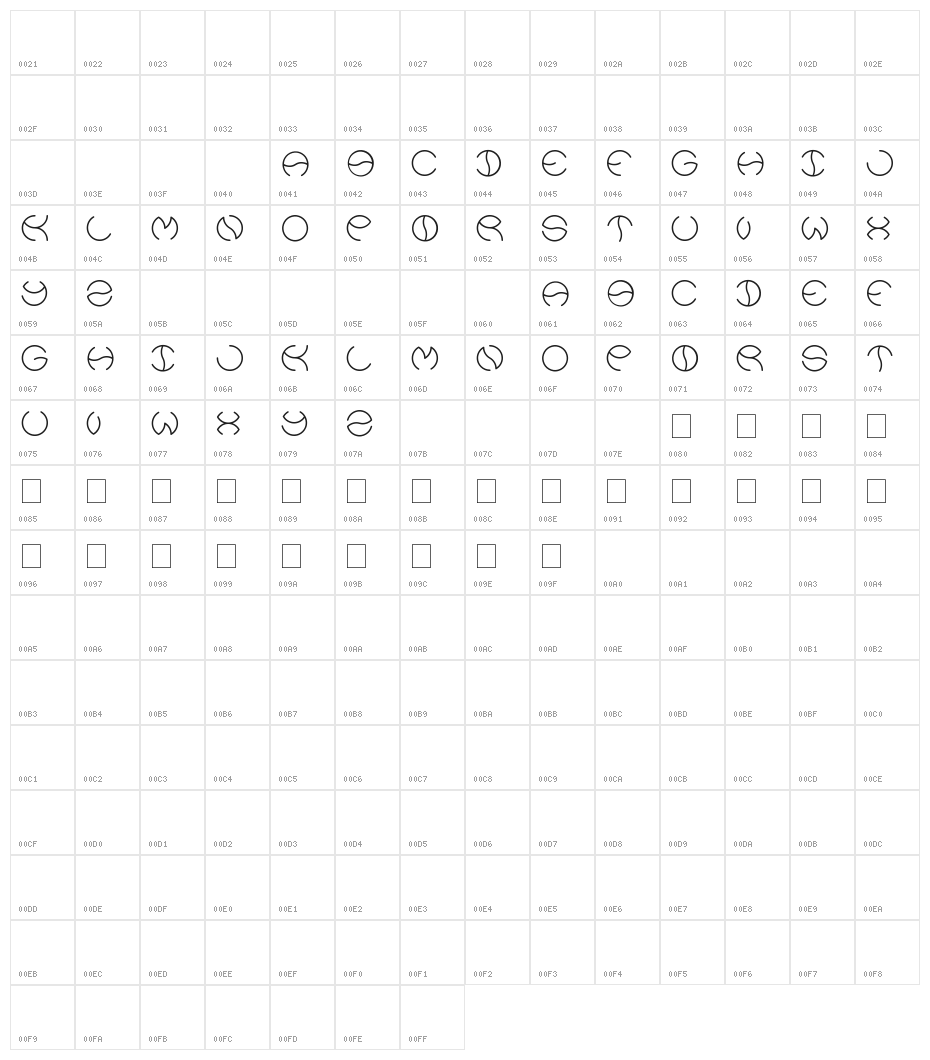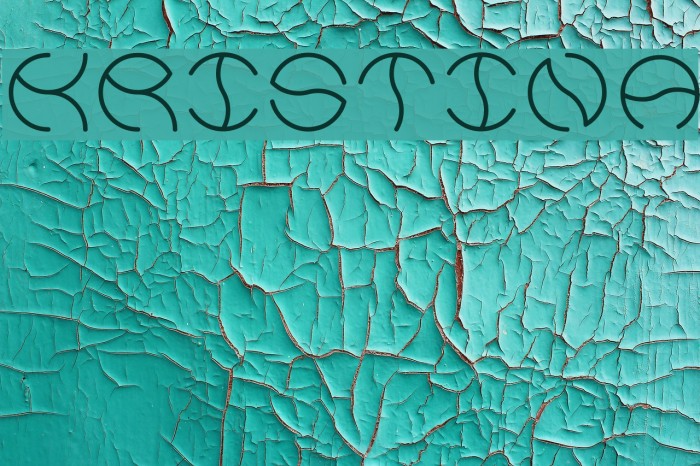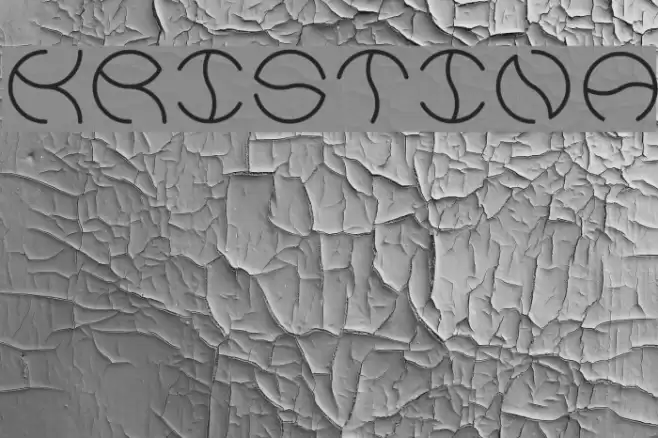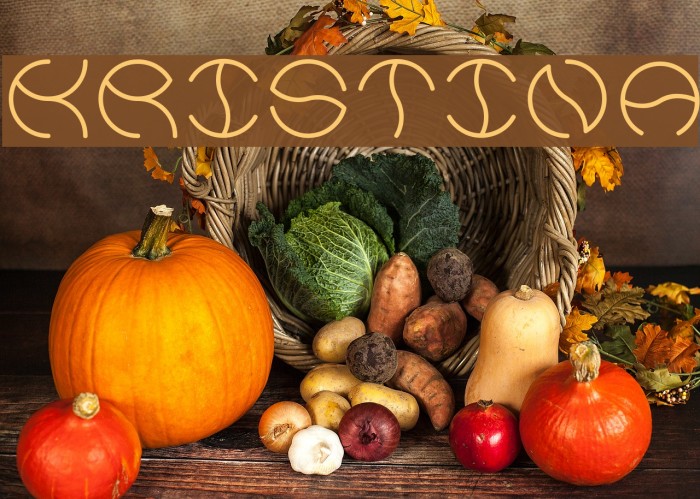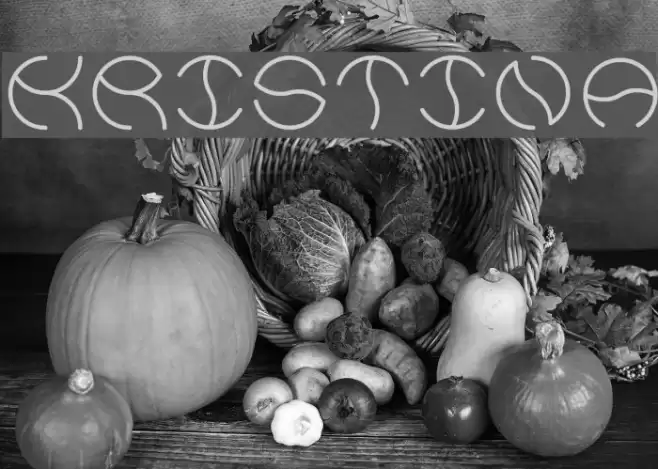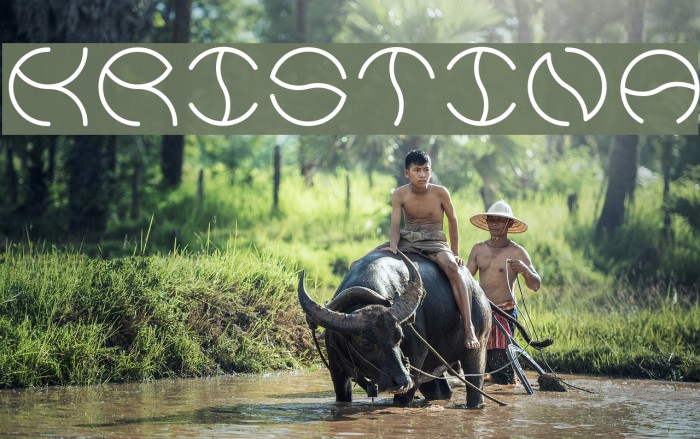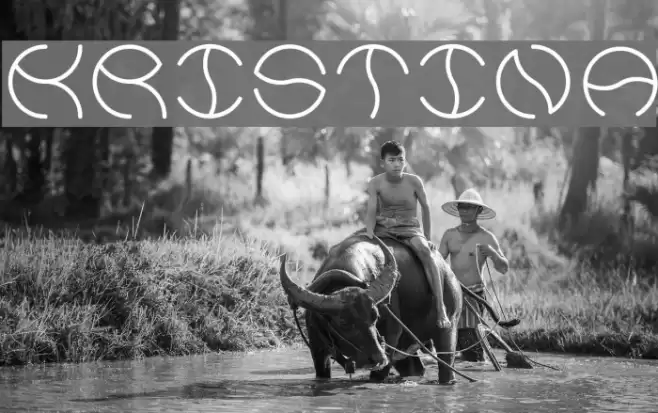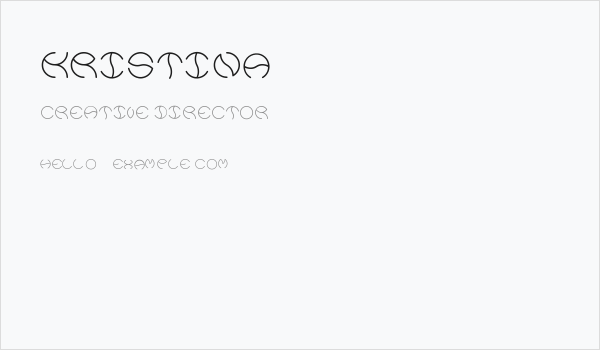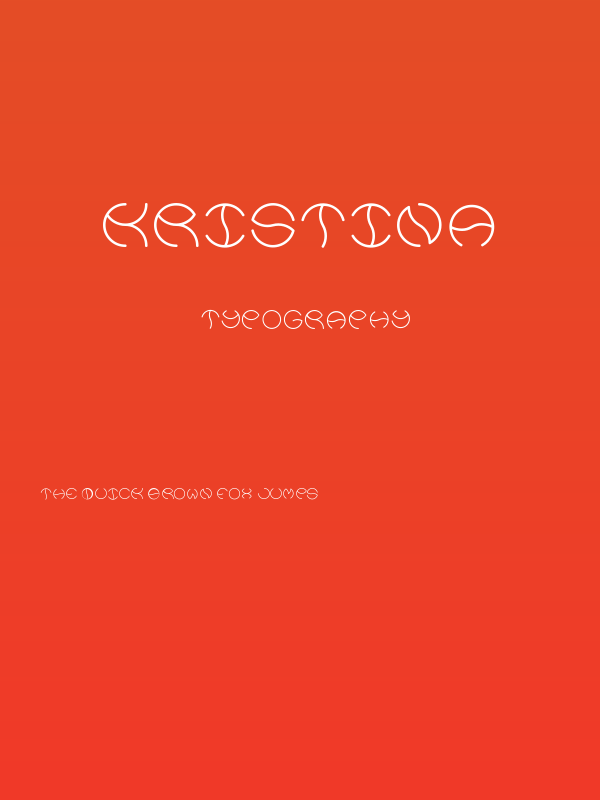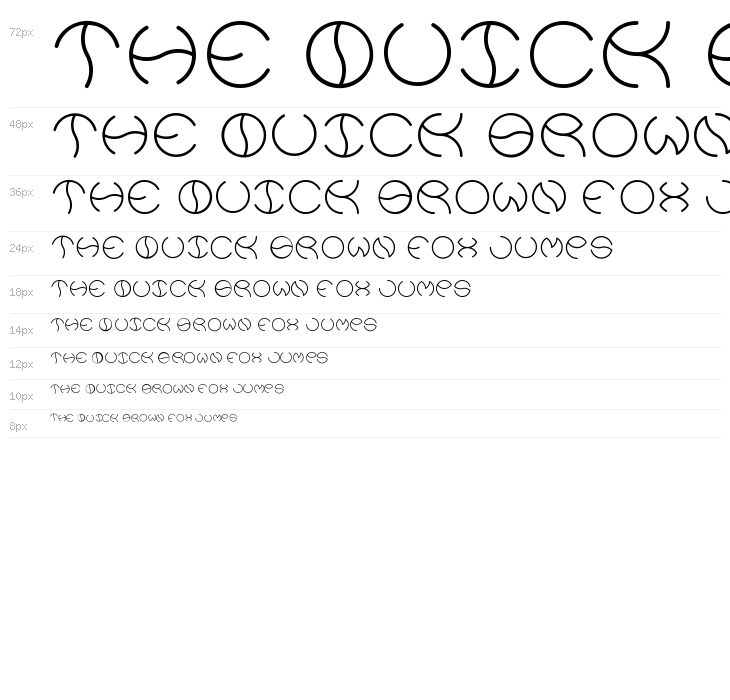
kristina Font
kristina Description
This font features a unique and modern design with a circular, geometric style. Each character is crafted with a consistent thickness, creating a harmonious and balanced appearance. The letters are formed with curves and lines that intersect, giving a futuristic and artistic feel. The uppercase letters are particularly striking, with a symmetrical and bold look that stands out. The font maintains a clean and minimalistic aesthetic, making it versatile for various design applications. Its distinct style is both eye-catching and readable, suitable for creative projects that require a contemporary touch.
| Proposed Projects | Ideal for branding, logos, posters, and modern web design. |